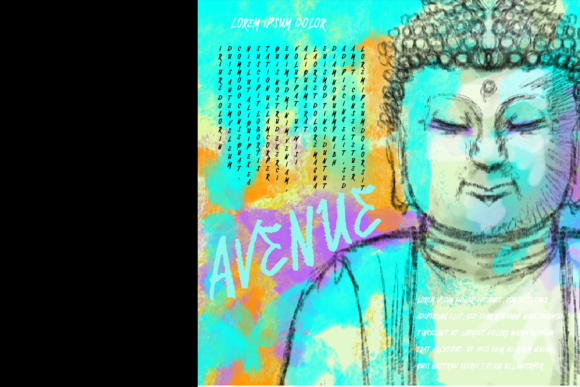
Introducing Avenue Font, the sassy and stylish script font that will add a touch of whimsy to your creative projects. Its playful curves and quirky design will make your posters, postcards, and stationery stand out from the crowd.
At first glance, you'll be captivated by Avenue Font's unique personality. Each letter dances across the page, exuding a sense of joy and creativity. It's the perfect font for adding a touch of fun to any project.
But Avenue Font is more than just a pretty face. Its versatility knows no bounds. Whether you're designing eye-catching posters, creating personalized postcards, or crafting unique stationery, Avenue Font will elevate your work to the next level.
Imagine your posters adorned with Avenue Font's charming curves, drawing attention to your message with undeniable flair. Your postcards will become instant keepsakes, cherished for their unique character and playful spirit. And your stationery will transform into works of art, making every letter and note a delight to behold.
Avenue Font is the brainchild of VTKS Design, a team of talented creatives who poured their passion into every stroke and curve. Their dedication to detail is evident in the font's polished appearance and effortless flow.
So why settle for ordinary fonts when you can unleash the extraordinary with Avenue Font? Its quirky charm, versatility, and impeccable design will add a touch of magic to your creative endeavors.